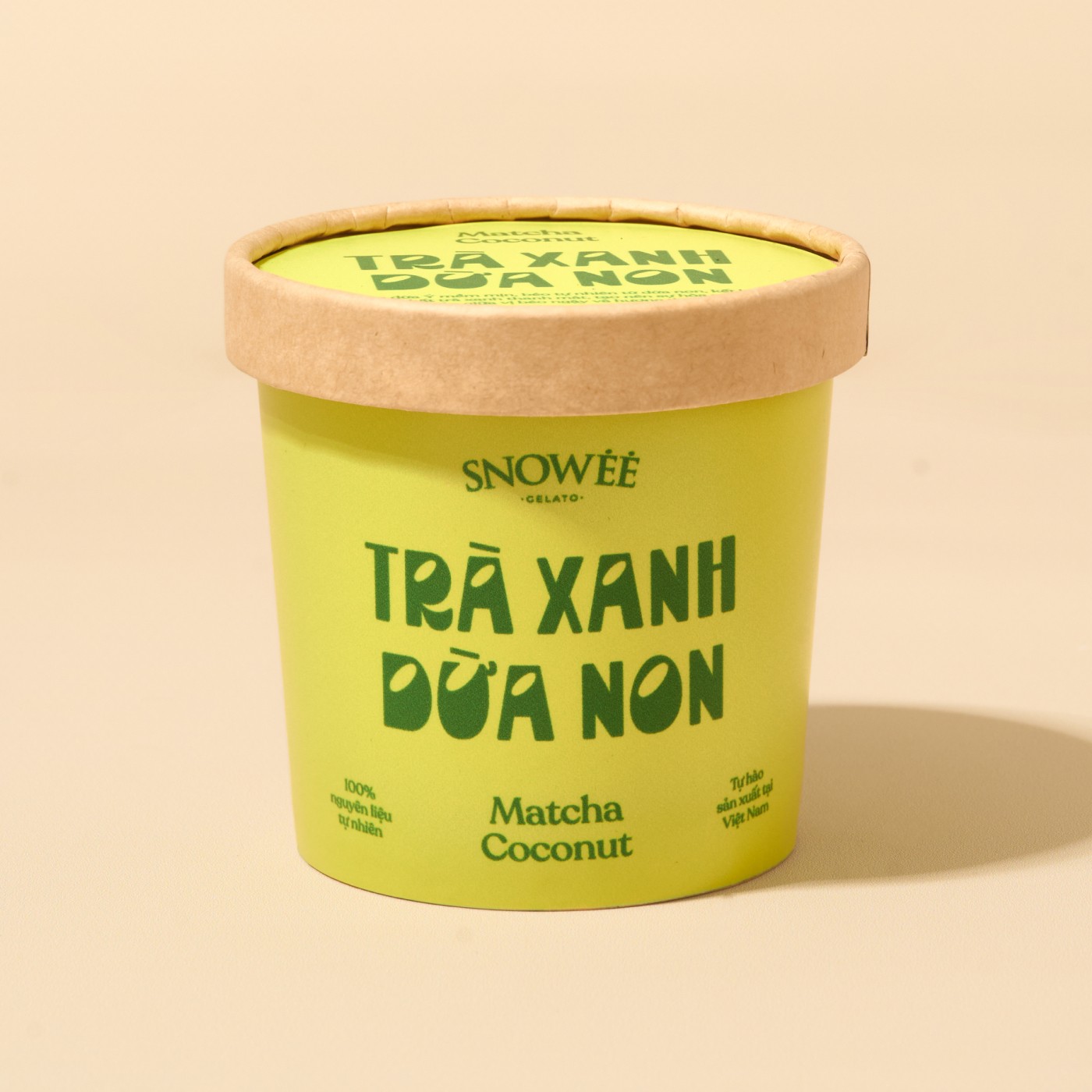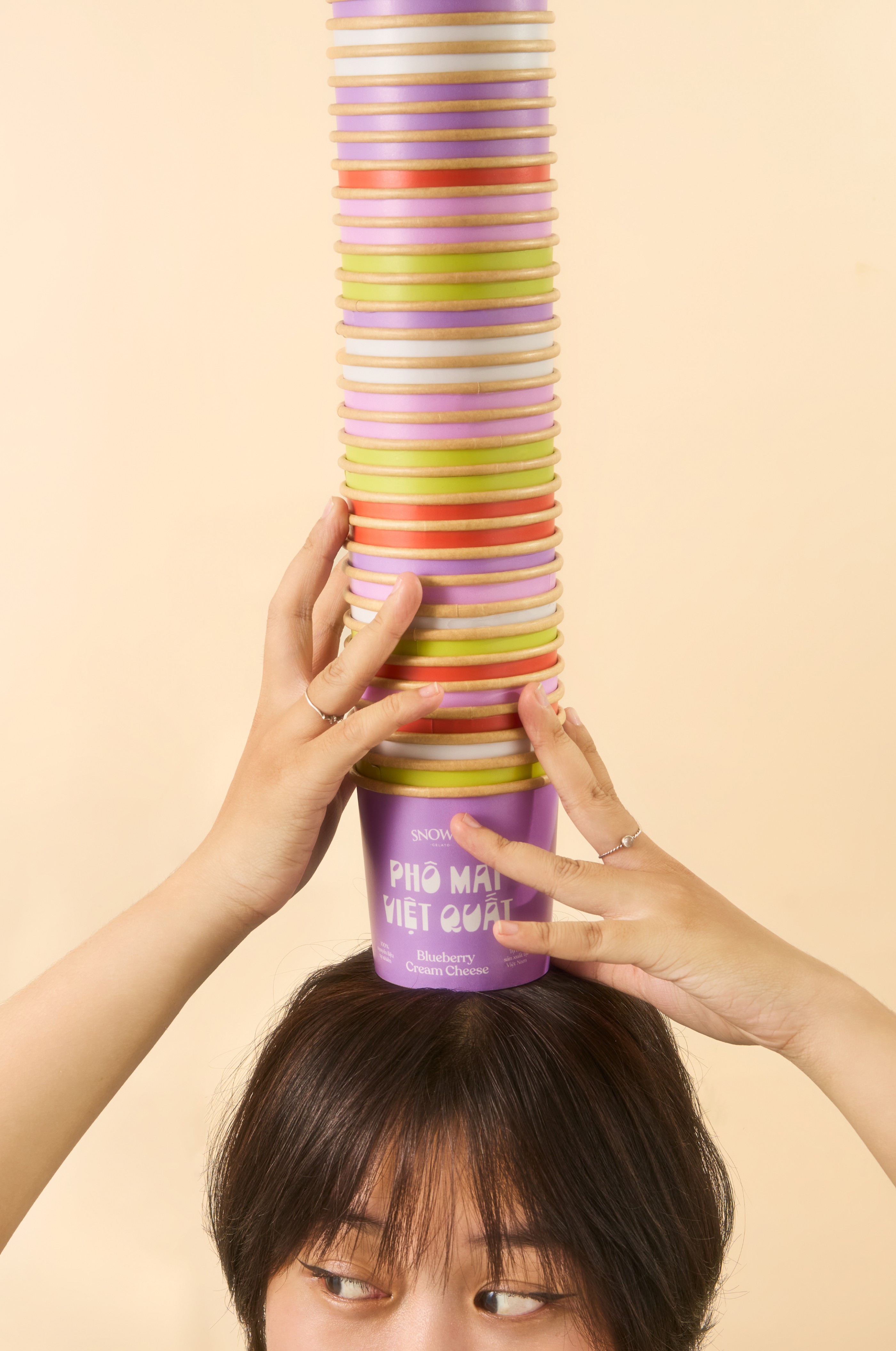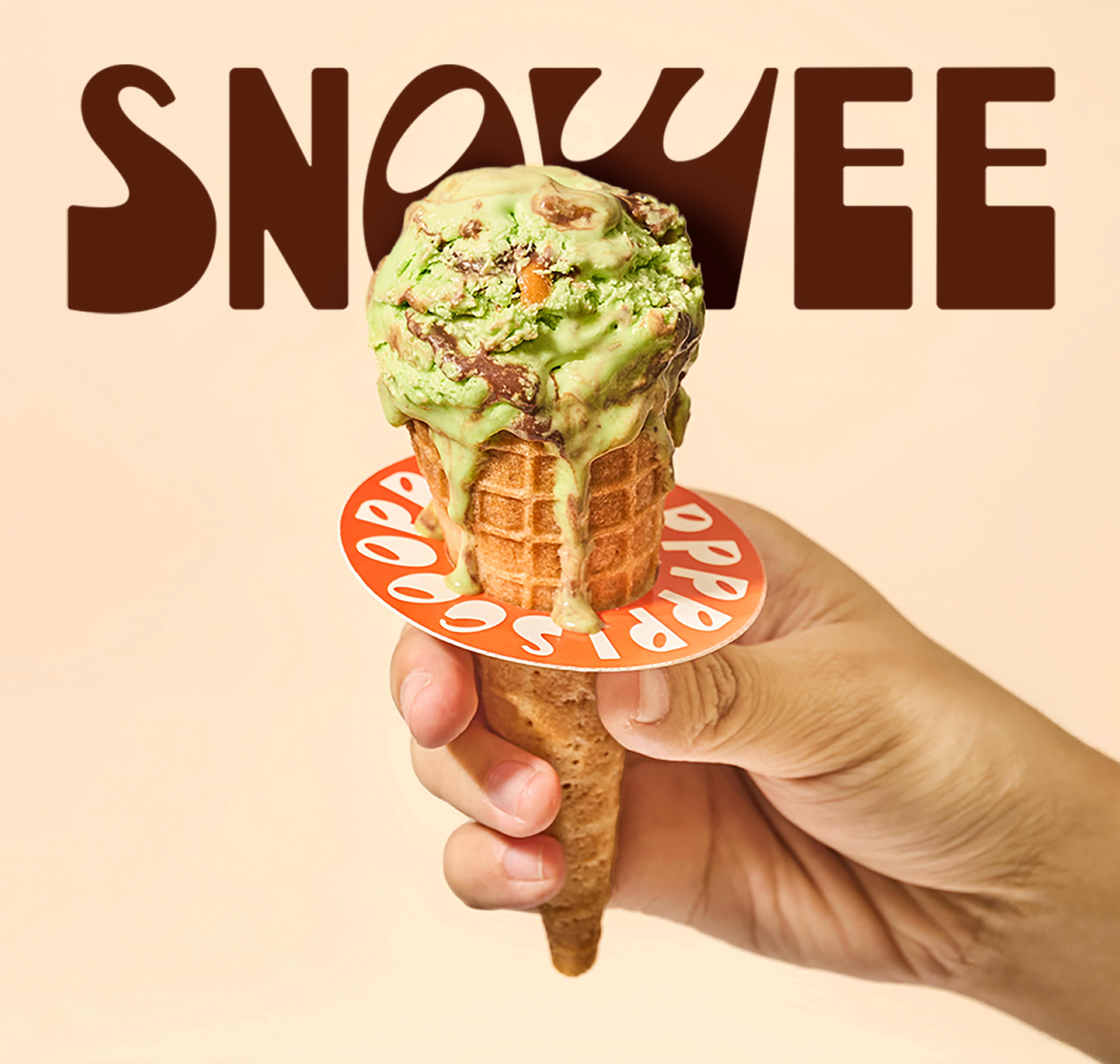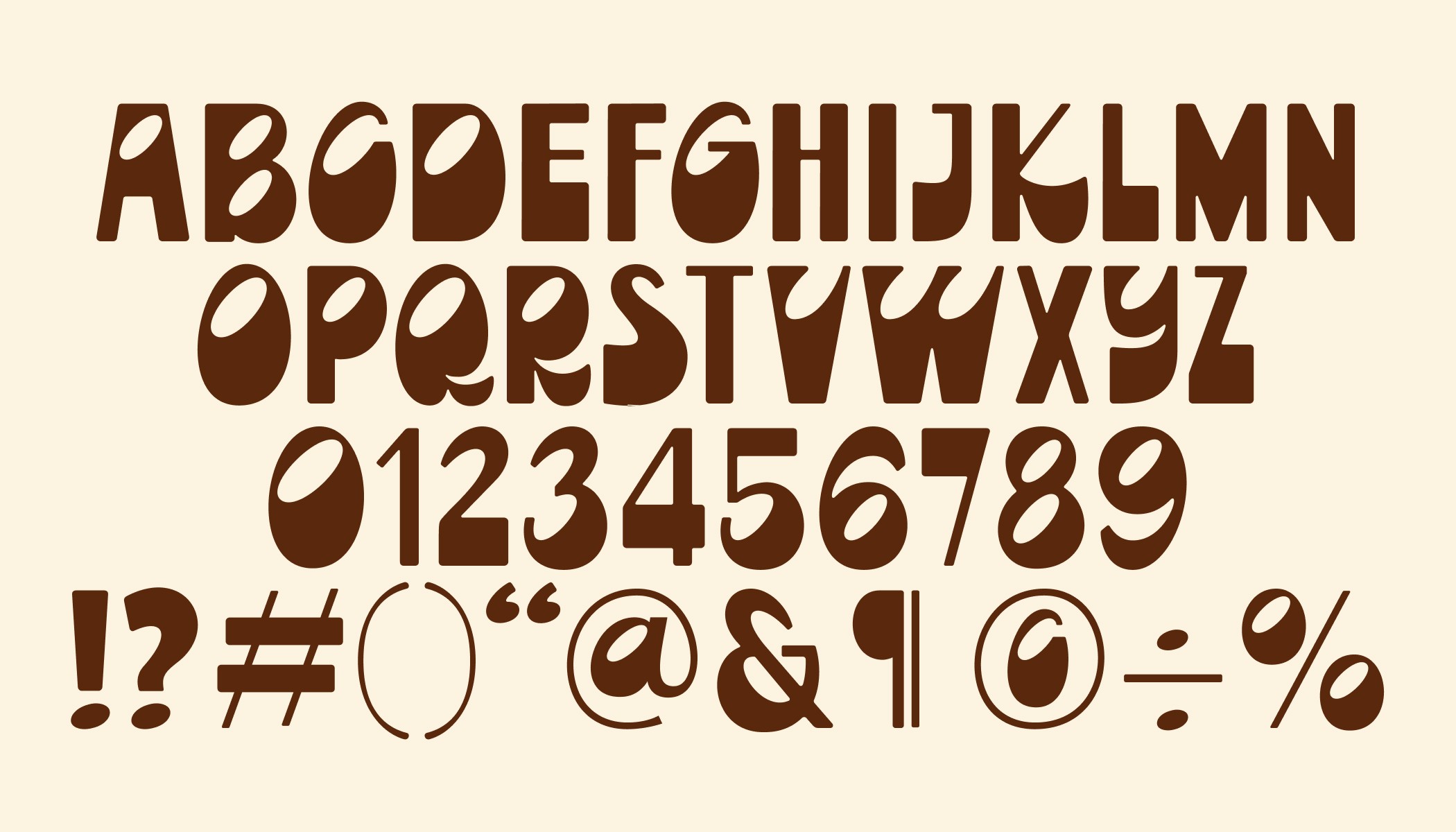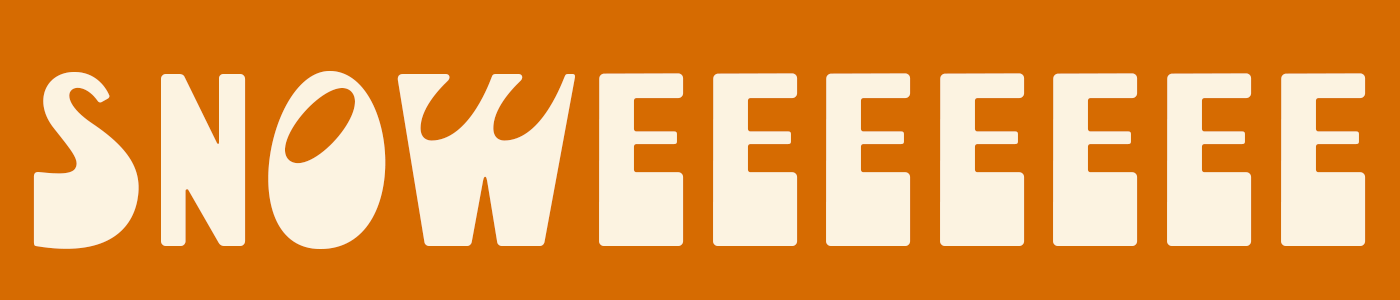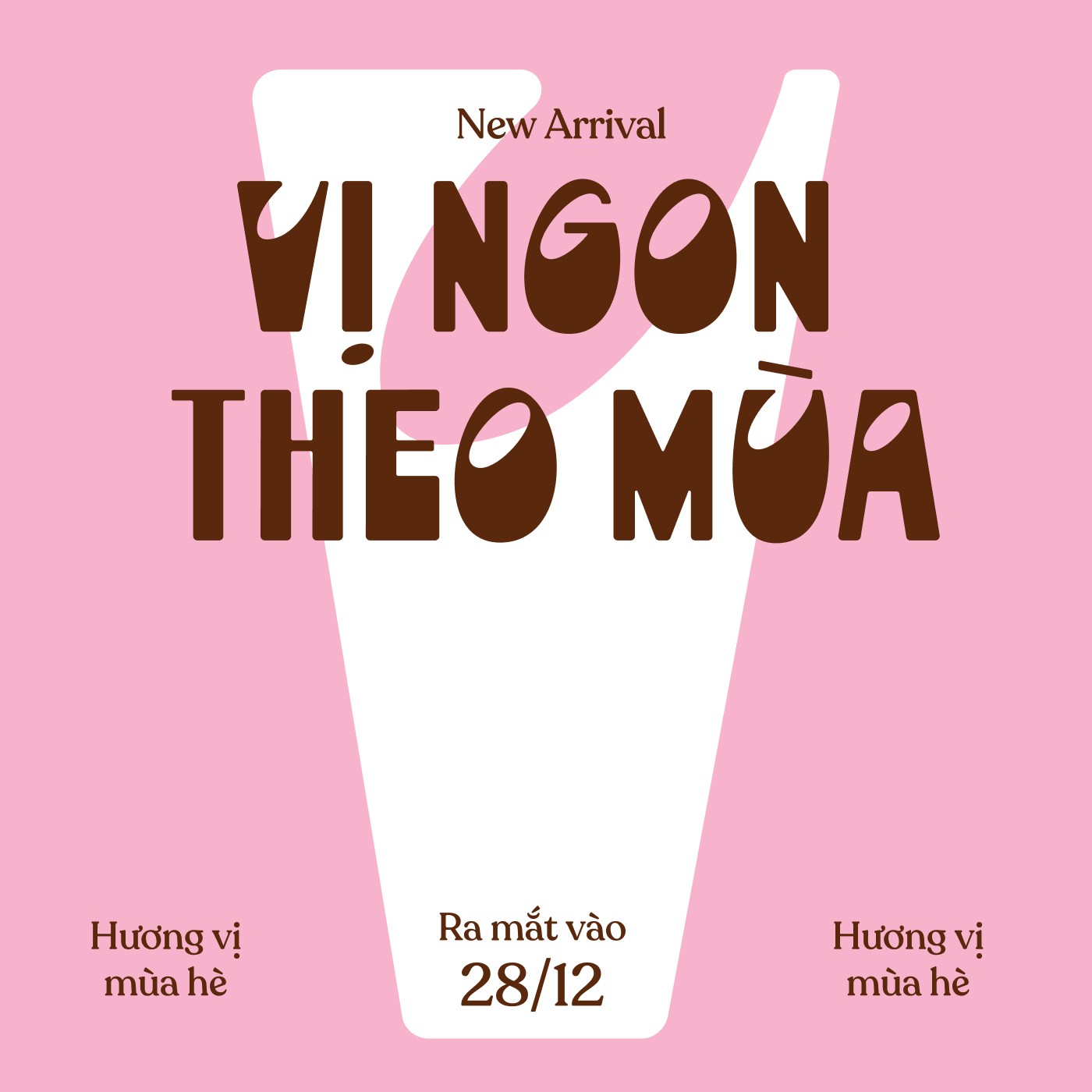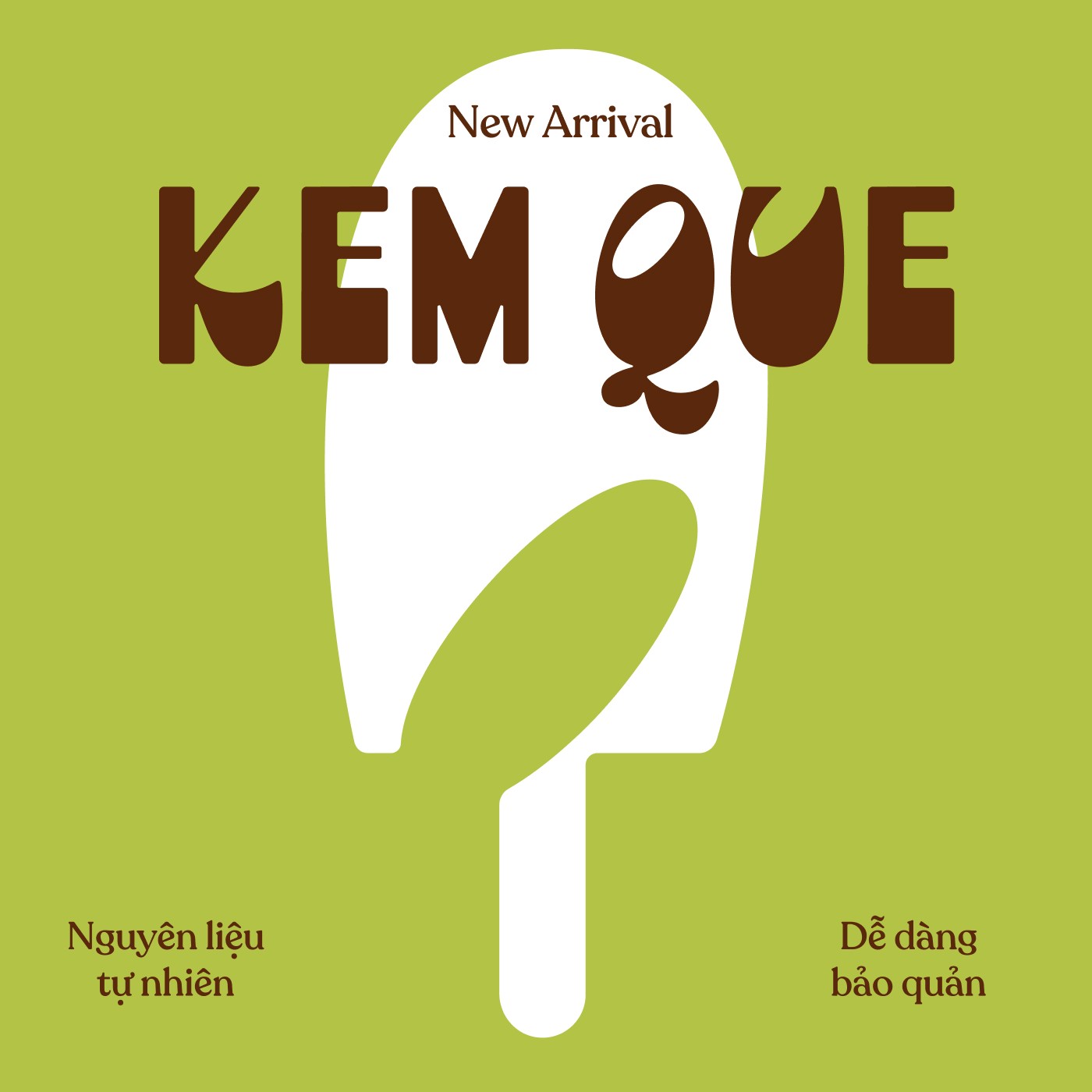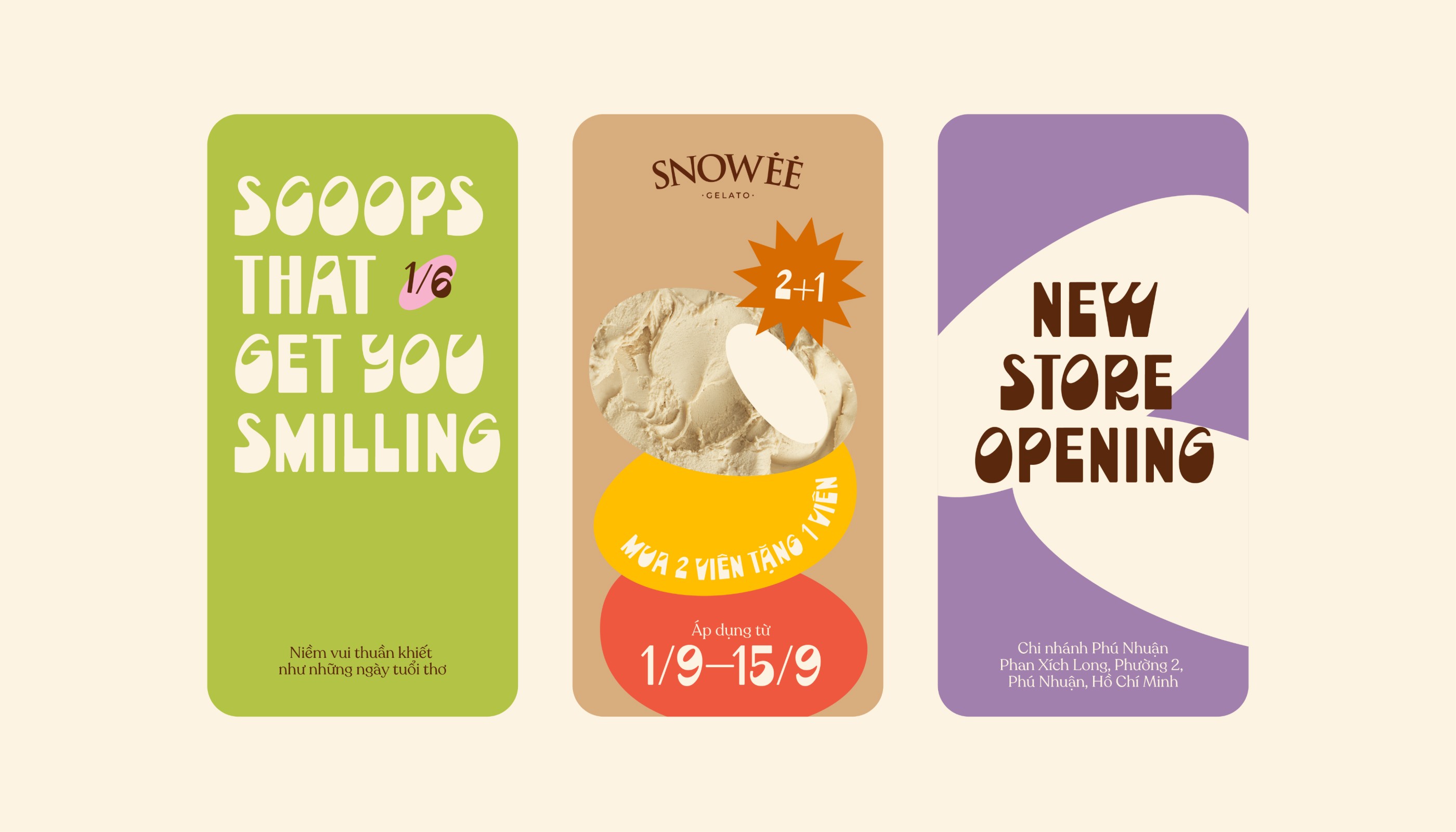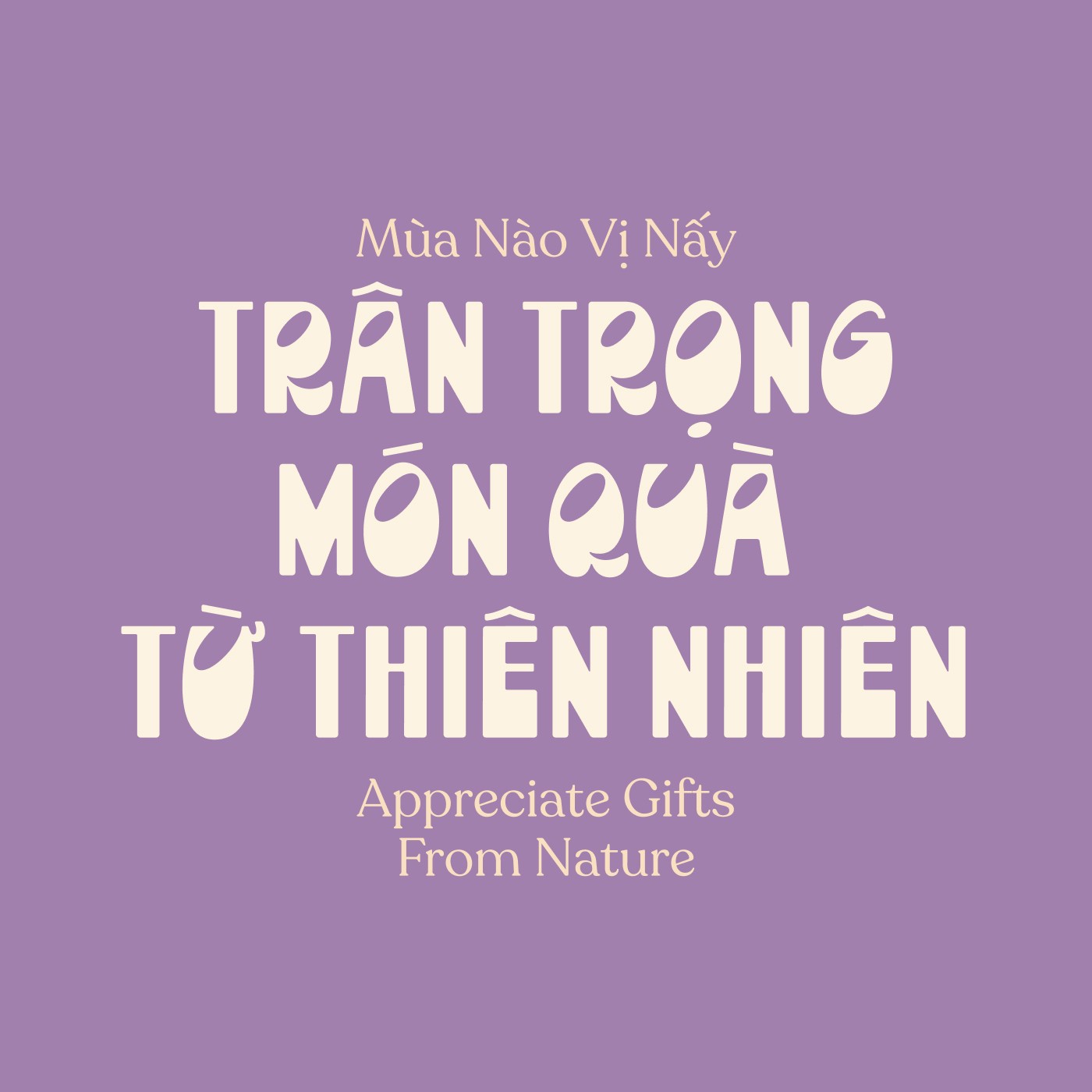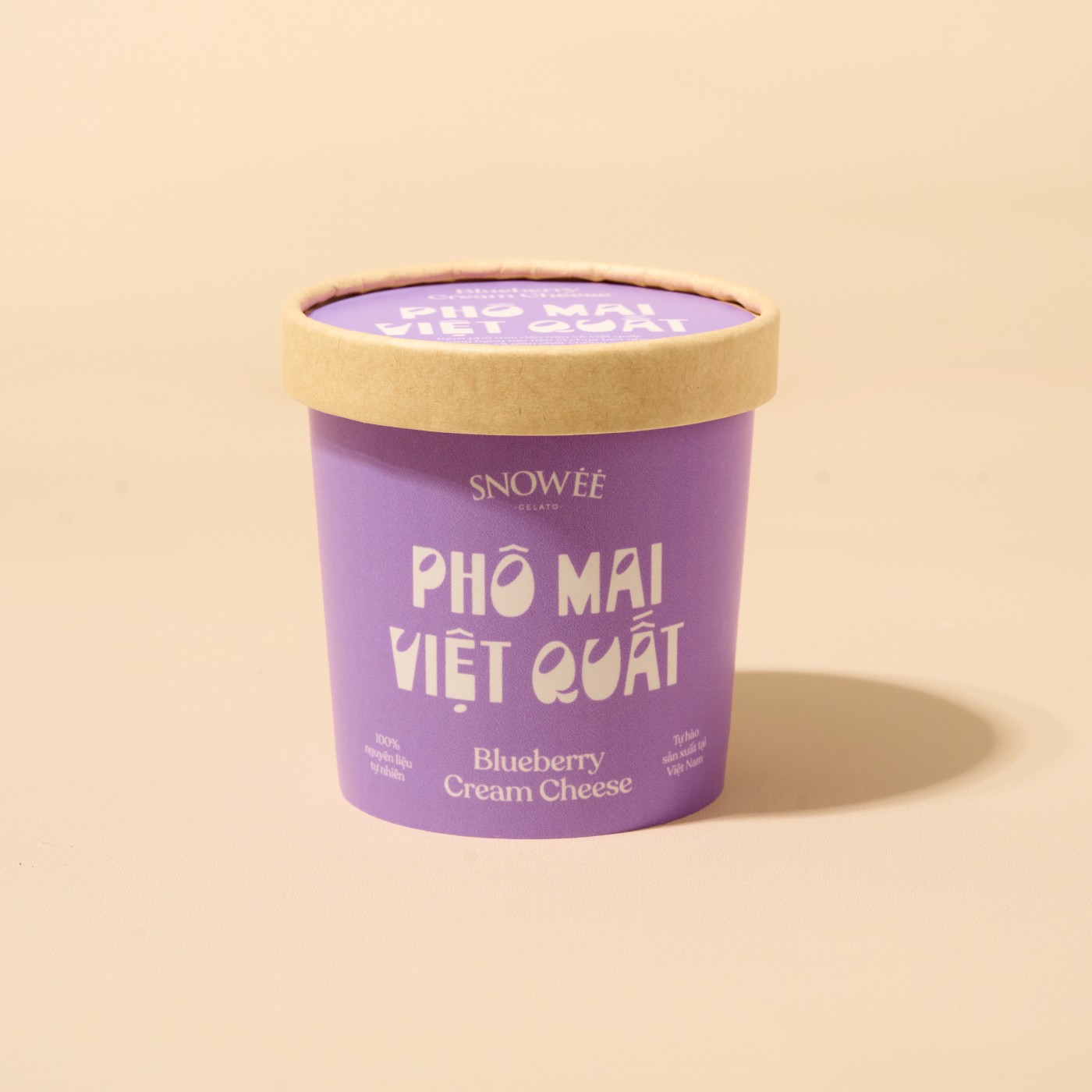
Snowee
Typeface
Snowee Gelato is an Italian-style gelato brand with over 20 years in Vietnam. The brand aims to refresh its identity to better align with its current target customers. As part of this effort, redesigning the font plays a role in creating a more cohesive brand image while also enhancing the user experience in a unique way.
The Joy Typeface is inspired by the happiness and joy that comes with every scoop of gelato – from the moment the spoon touches the gelato to when it brings delight to each person’s taste buds. It symbolizes the simple pleasure and happiness that gelato brings.
The typeface design is based on the structure of an ellipse, representing dynamism and evoking the image of gelato being scooped with a spoon. This is combined with the natural flow inspired by the strokes of calligraphy, adding a touch of authenticity and warmth.